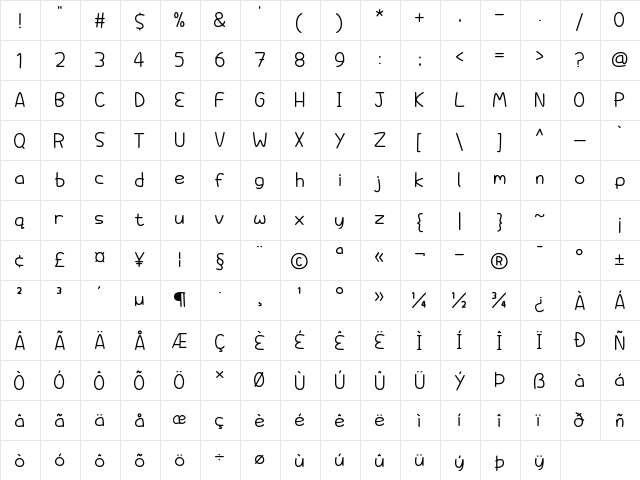
Springtime Daydream Regular Font Preview
Springtime Daydream Regular
Springtime Daydream Regular Font Details
Design Context for Springtime Daydream Typeface
Springtime Daydream is a composed and adaptable typeface that performs quietly and consistently across a wide range of design contexts.